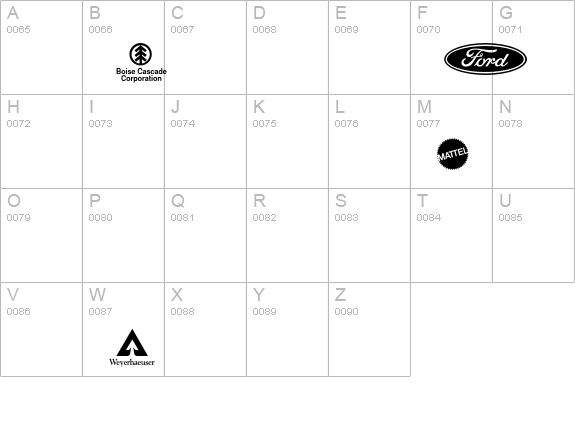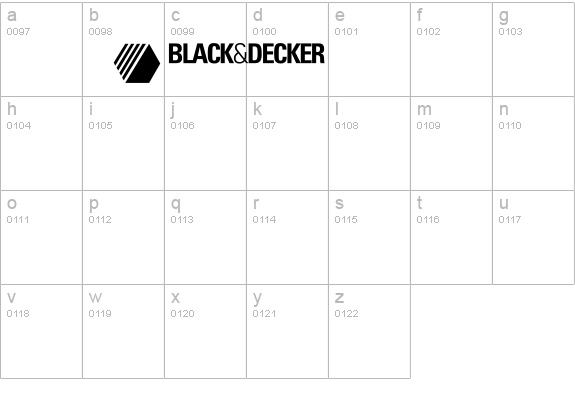
LogosManufacturing Font Details
Introducing LogosManufacturing Font – a sleek and modern typeface perfect for a wide range of design projects. This versatile font features clean lines and sharp angles, making it ideal for branding, logos, posters, and more. With its bold presence and professional aesthetic, LogosManufacturing Font is sure to make your designs stand out. The best part? LogosManufacturing Font is completely free to download! You can get your hands on this stylish typeface at FontsMarket.com and start using it in your projects right away. Don't miss out on this amazing opportunity to enhance your designs with the sophisticated charm of LogosManufacturing Font. Download it now and elevate your typography game!